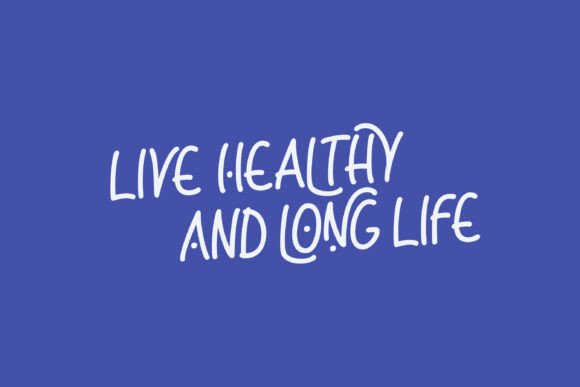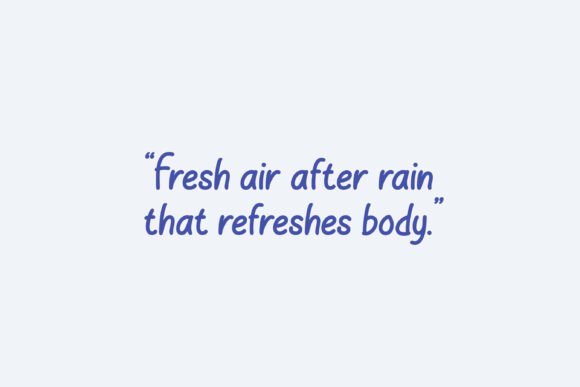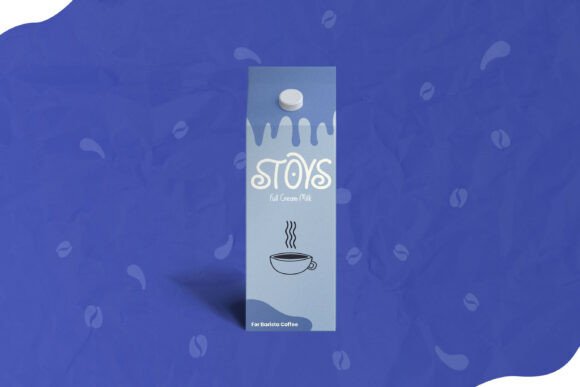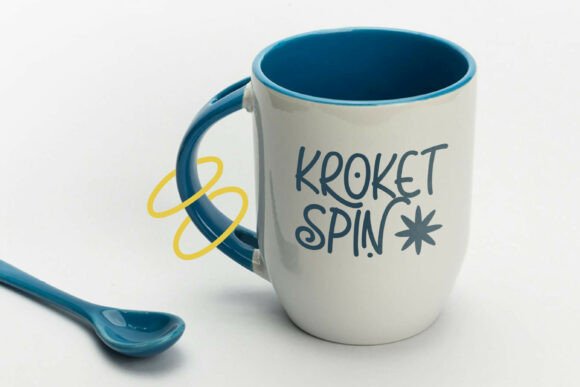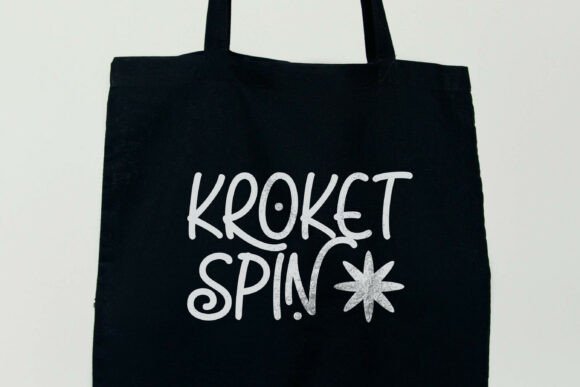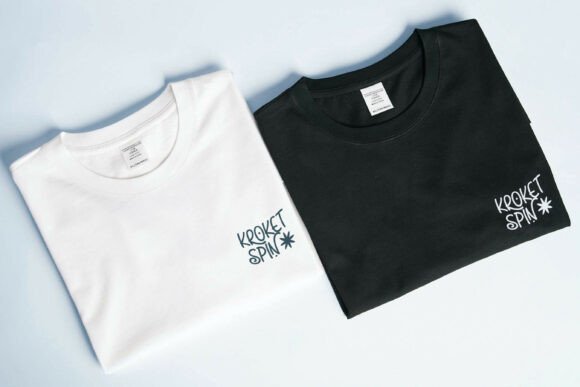
Barepino Font: Adding a Playful Touch to Your Designs
In the world of typography, fonts play a crucial role in conveying the tone and personality of a brand or design. If you’re looking for a font that can add a playful and lively touch to your projects, look no further than Barepino. This fun handwritten font is perfect for designers and crafters who want to create engaging and whimsical designs that capture the imagination of their audience.
The Characteristics of Barepino Font
Barepino is a handwritten font that boasts natural strokes and a casual feel. Its cheerful and friendly appearance makes it an excellent choice for a wide range of design projects, from branding and packaging to invitations, greeting cards, and social media posts. The font’s playful and lively personality is sure to make your designs stand out and leave a lasting impression on your audience.
One of the best things about Barepino is its versatility. This font can be used for a wide range of design projects, including:
- Branding: Use Barepino to create a unique and memorable brand identity that reflects your company’s playful and friendly personality.
- Packaging: Add a touch of whimsy to your product packaging with Barepino, making it stand out on store shelves and online.
- Invitations and Greeting Cards: Create personalized and eye-catching invitations and greeting cards that are sure to delight the recipient.
- Social Media Posts: Use Barepino to add a playful touch to your social media posts, making them more engaging and shareable.
- Children’s Books: Barepino is an excellent choice for children’s books, adding a fun and imaginative touch to your story.
Why Choose Barepino Font?
So, why should you choose Barepino for your design projects? Here are just a few reasons:
- Unique and Playful: Barepino is a one-of-a-kind font that adds a unique and playful touch to your designs.
- Easy to Read: Despite its playful nature, Barepino is easy to read, making it perfect for body text and headlines.
- Versatile: Barepino can be used for a wide range of design projects, from digital to print.
- High-Quality: Barepino is a high-quality font that is designed to deliver exceptional results.
Tips for Using Barepino Font
To get the most out of Barepino, here are a few tips to keep in mind:
- Use it with a contrasting font: Pair Barepino with a contrasting font to create visual interest and hierarchy in your design.
- Experiment with colors: Barepino looks great in a variety of colors, so don’t be afraid to experiment and find the perfect hue for your design.
- Use it consistently: Use Barepino consistently throughout your design to create a cohesive and recognizable brand identity.
In conclusion, Barepino is a fun and playful handwritten font that is perfect for designers and crafters who want to add a whimsical touch to their designs. With its natural strokes, casual feel, and cheerful appearance, Barepino is an excellent choice for a wide range of design projects. Whether you’re creating branding, packaging, invitations, or social media posts, Barepino is sure to bring a smile to your audience’s face. So why not give Barepino a try and see how it can elevate your designs to the next level?